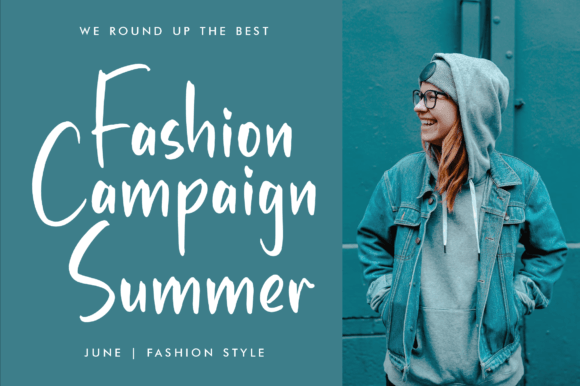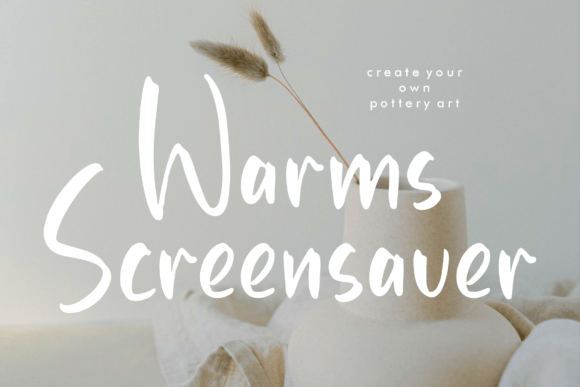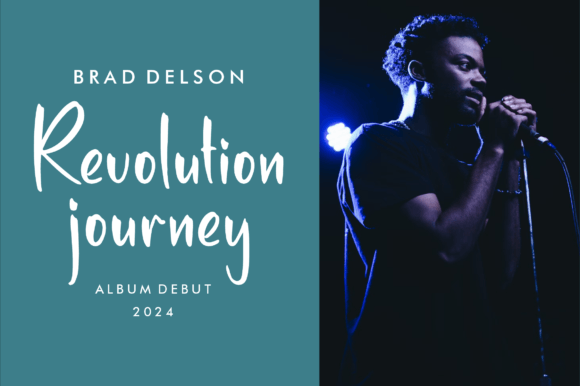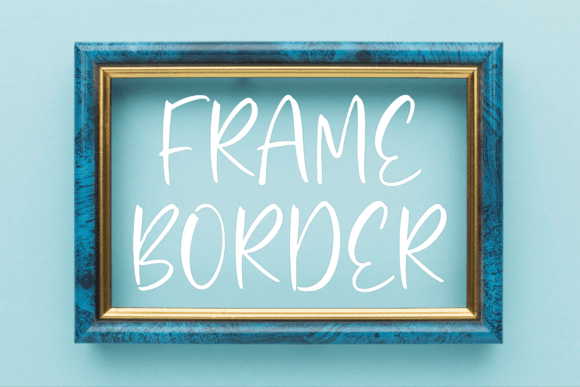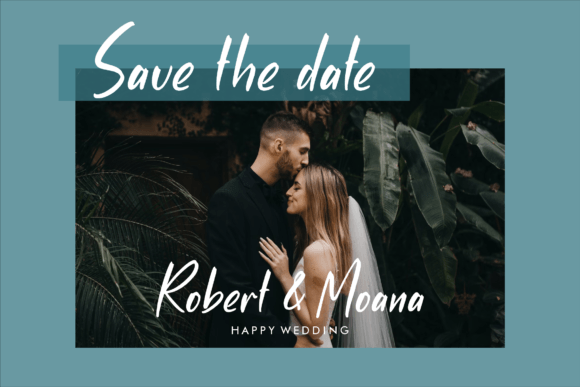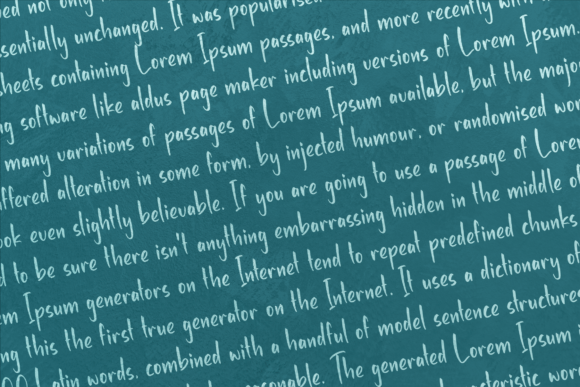
Introducing Brodslice Font: Elevate Your Designs with Elegant Handwritten Style
Are you a designer or crafter looking for a beautiful and versatile font to elevate your projects? Look no further than Brodslice Font, a stunning handwritten script that can add a touch of elegance to any design. In this article, we’ll explore the features and benefits of Brodslice Font, and how it can be used to create stunning logos, branding projects, homeware designs, and more.
What is Brodslice Font?
Brodslice Font is a beautiful handwritten font designed to bring a touch of sophistication and style to any project. Its elegant script and flowing lines make it perfect for a wide range of applications, from logos and branding projects to homeware designs, product packaging, and more.
Features of Brodslice Font
- Handwritten script: Brodslice Font features a beautiful, handwritten script that adds a touch of elegance and sophistication to any design.
- Versatile: This font is suitable for a wide range of projects, including logos, branding projects, homeware designs, product packaging, and more.
- Elegant and refined: Brodslice Font has a refined and elegant feel, making it perfect for designs that require a touch of sophistication.
- Easy to read: Despite its elegant script, Brodslice Font is easy to read, making it perfect for body text and headlines.
Uses of Brodslice Font
Brodslice Font is a versatile font that can be used for a wide range of projects, including:
- Logos and branding projects: Create a stunning logo or brand identity with Brodslice Font.
- Homeware designs: Add a touch of elegance to your homeware designs, such as cushions, tote bags, and mugs.
- Product packaging: Elevate your product packaging with Brodslice Font, perfect for labels, boxes, and more.
- Mugs and quotes: Create stunning mugs and quotes with Brodslice Font, perfect for social media and gifts.
- Posters and shopping bags: Create eye-catching posters and shopping bags with Brodslice Font.
- T-shirts and book covers: Add a touch of elegance to your t-shirts and book covers with Brodslice Font.
- Name cards and invitation cards: Create beautiful name cards and invitation cards with Brodslice Font.
- Greeting cards and labels: Add a touch of elegance to your greeting cards and labels with Brodslice Font.
- Photography and watermark: Use Brodslice Font as a watermark for your photography or add it to your photo prints.
Why Choose Brodslice Font?
There are many reasons to choose Brodslice Font for your next project. Here are a few:
- Unique and elegant: Brodslice Font offers a unique and elegant script that will set your designs apart.
- Versatile: This font is suitable for a wide range of projects, making it a great addition to your font library.
In conclusion, Brodslice Font is a beautiful and versatile handwritten font that can elevate any design. Its elegant script and flowing lines make it perfect for a wide range of projects, from logos and branding projects to homeware designs and product packaging. With its ease of use and unique style, Brodslice Font is a great addition to any designer’s or crafter’s font library.